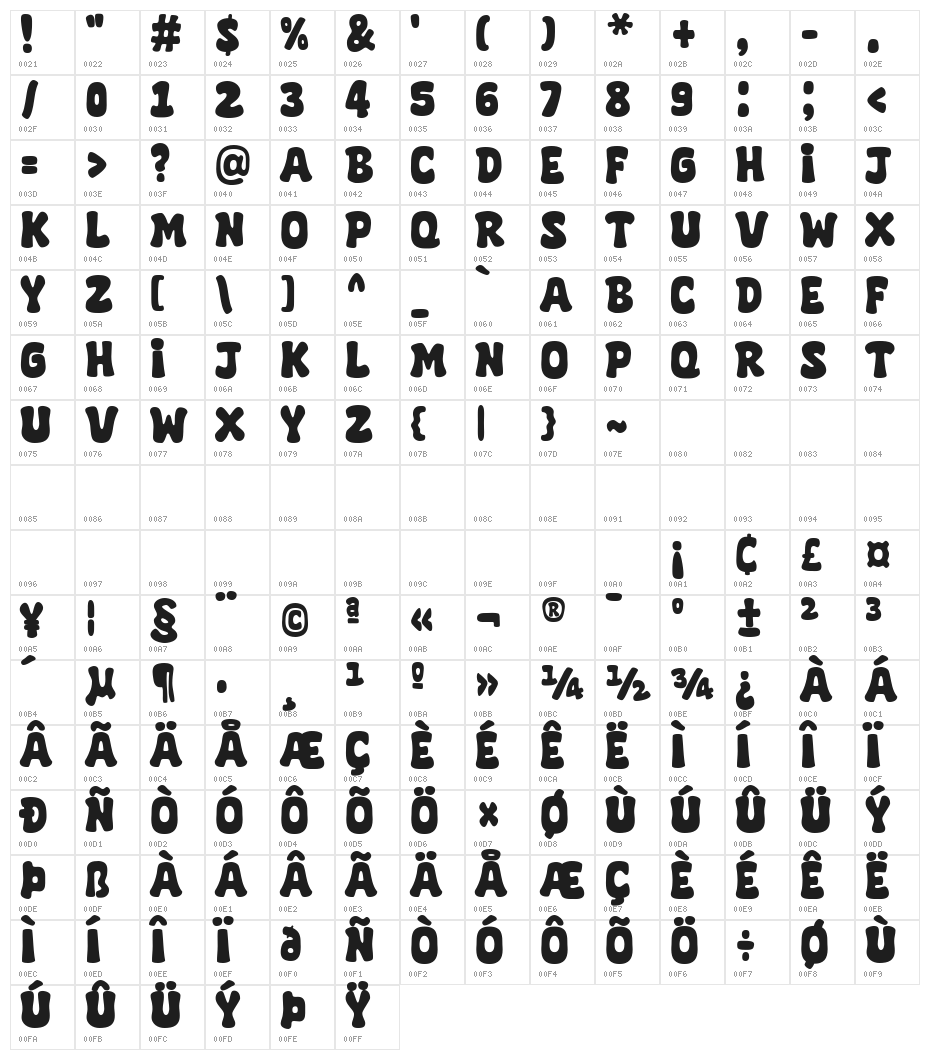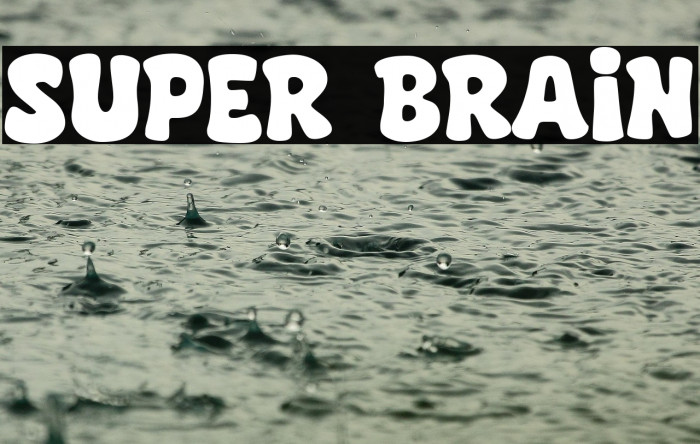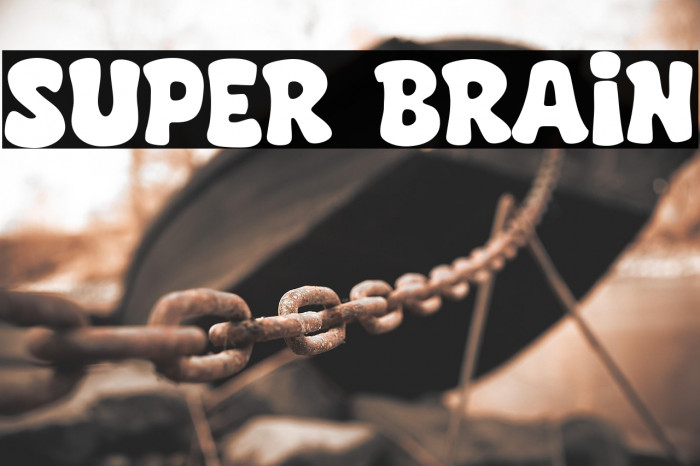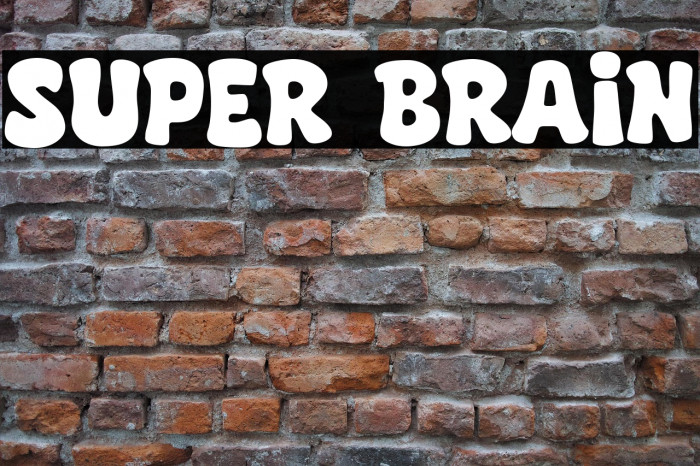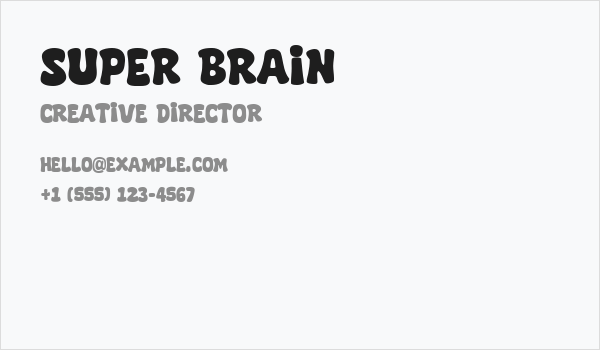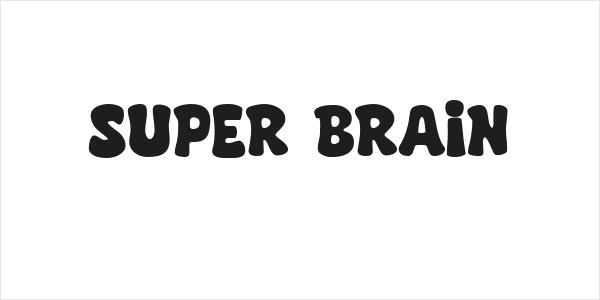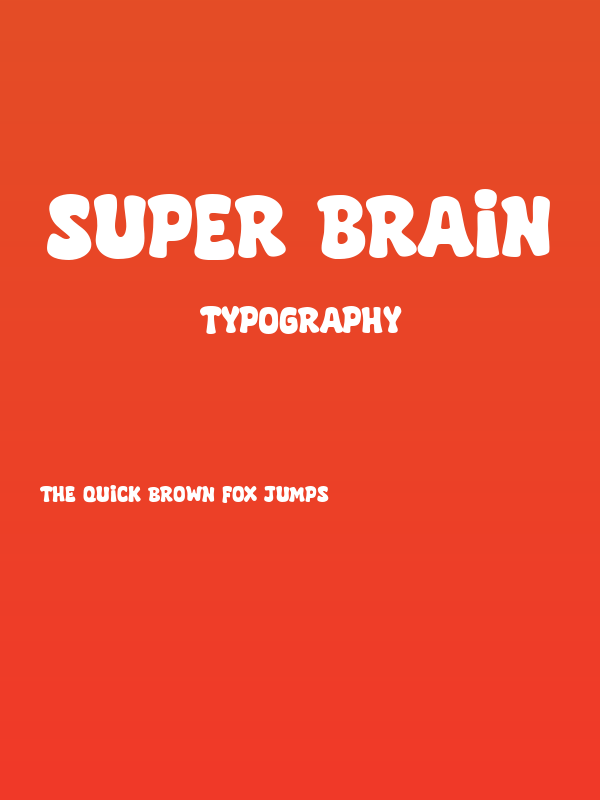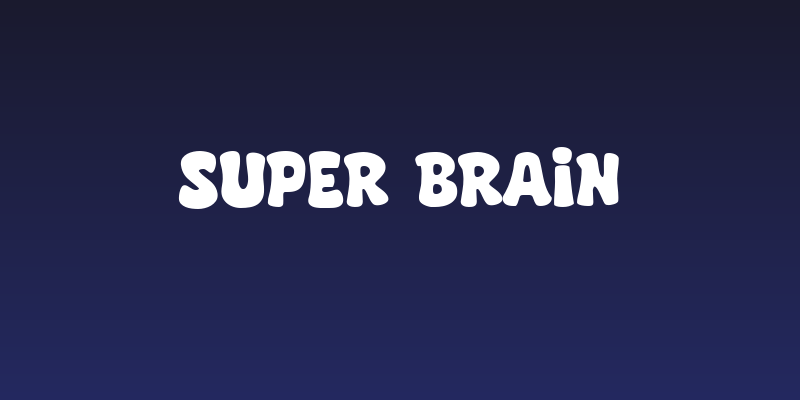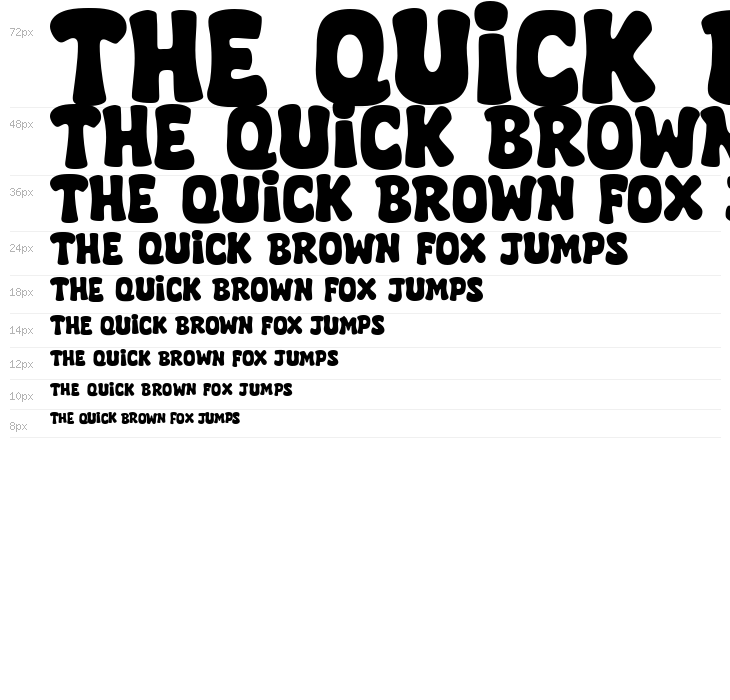
Super Brain Font
Super Brain Description
This font features a bold and playful design with rounded edges and a bubbly appearance. The characters are thick and substantial, giving a sense of fun and approachability. The uppercase and lowercase letters maintain a consistent style, with a slightly exaggerated width that enhances their whimsical nature. Numbers and special characters follow the same design principles, ensuring uniformity across all glyphs. The overall look is reminiscent of retro or comic styles, making it ideal for projects that require a lighthearted and engaging aesthetic.
| Width | Expanded |
| Overall Style | Playful, Retro |
| Proposed Projects | Ideal for children's books, comic strips, playful branding, and party invitations. |